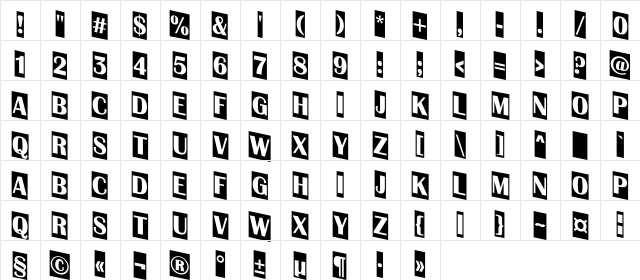
Complete a_AlbionicTitulCmDn Regular glyph index. Displaying only characters natively supported by a_AlbionicTitulCmDn Regular font.
a_AlbionicTitulCmDn is a composed and adaptable typeface that performs quietly and consistently across a wide range of design contexts.
Pro Tip: Use a_AlbionicTitulCmDn in both headline and body roles to test its range before committing to a single application.